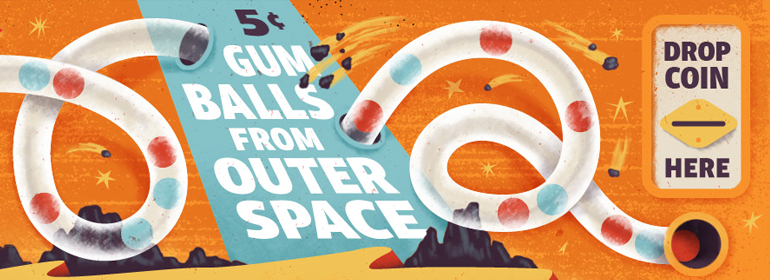
ITC Chino™
With two styles and twelve weights, the ITC Chino family is distinctive, versatile - and available as OpenType Pro fonts. The display designs are friendly and inviting while the text faces are no-nonsense communicators - albeit with a certain sparkle. This new family from Hannes von Döhren and Livius Dietzel is poised to become an important design tool.
A study in contrasts
The ITC Chino typeface family is a study in contrasts: twelve family members ranging from fanciful, script-like display designs, to typefaces with a decidedly judicious demeanor well-suited for text composition. Designers Hannes von Döhren and Livius Dietzel collaborated on the entire family, and the result is lighthearted and uncomplicated - with a bit of urban sophistication.
Emotional but with a big city flavor"
Von Döhren and Dietzel live and work in Berlin. They wanted ITC Chino to reflect their environment, but with a definite organic quality. "We sought to make Chino emotional and have a big city flavor at the same time,"says von Döhren. "Our challenge was to balance these divergent qualities throughout the designs." He adds, "We combined straight stems with soft curves to give a feeling of thoughtful clarity blended with playfulness."
Friendly but focused
ITC Chino Display is friendly but focused, intended for setting few words in large sizes. Its two weights of Thin and Ultra are good-natured typefaces made of soft curves, contrasting straight vertical strokes and playfully structured terminals. The Thin is a chic monoline melding of script and sans serif character traits while the Ultra is a more whimsical - and more substantial - interpretation of this theme. Seemingly stylistic opposites, both designs serve as perfect complements to the text typefaces of ITC Chino.
A typeface with a big typographical palette
The text side of the family contains five weights of roman, each with an italic companion. Ranging from Light to Black, ITC Chino provides a rich typographic palette. Slightly condensed character shapes and squared-off transition strokes replace the soft full curves of the display designs. While the lowercase benefits from a two-storied "a" and bowl-and-loop "g" as aids to legibility, and the playful aspects of the display design are incorporated as soft background melodies, von Döhren and Dietzel drew ITC Chino with simplicity as their design mantra. "We drew the text faces from scratch," says Dietzel, "minimizing the personality of the display designs to create optimal readability.""